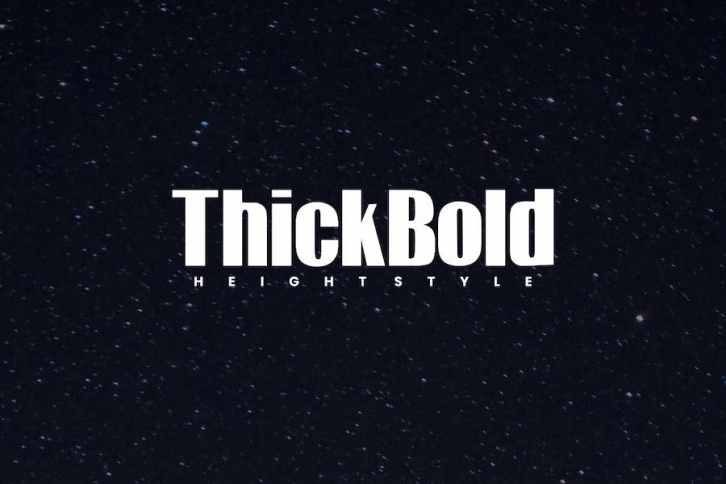
Thick Bold - Sans Serif Font Download
Introducing Thick Bold, an modern, simple, and cool sans serif font. So perfect for you who needs a typeface for logo designs, magazine, social media, brochure, and many more.